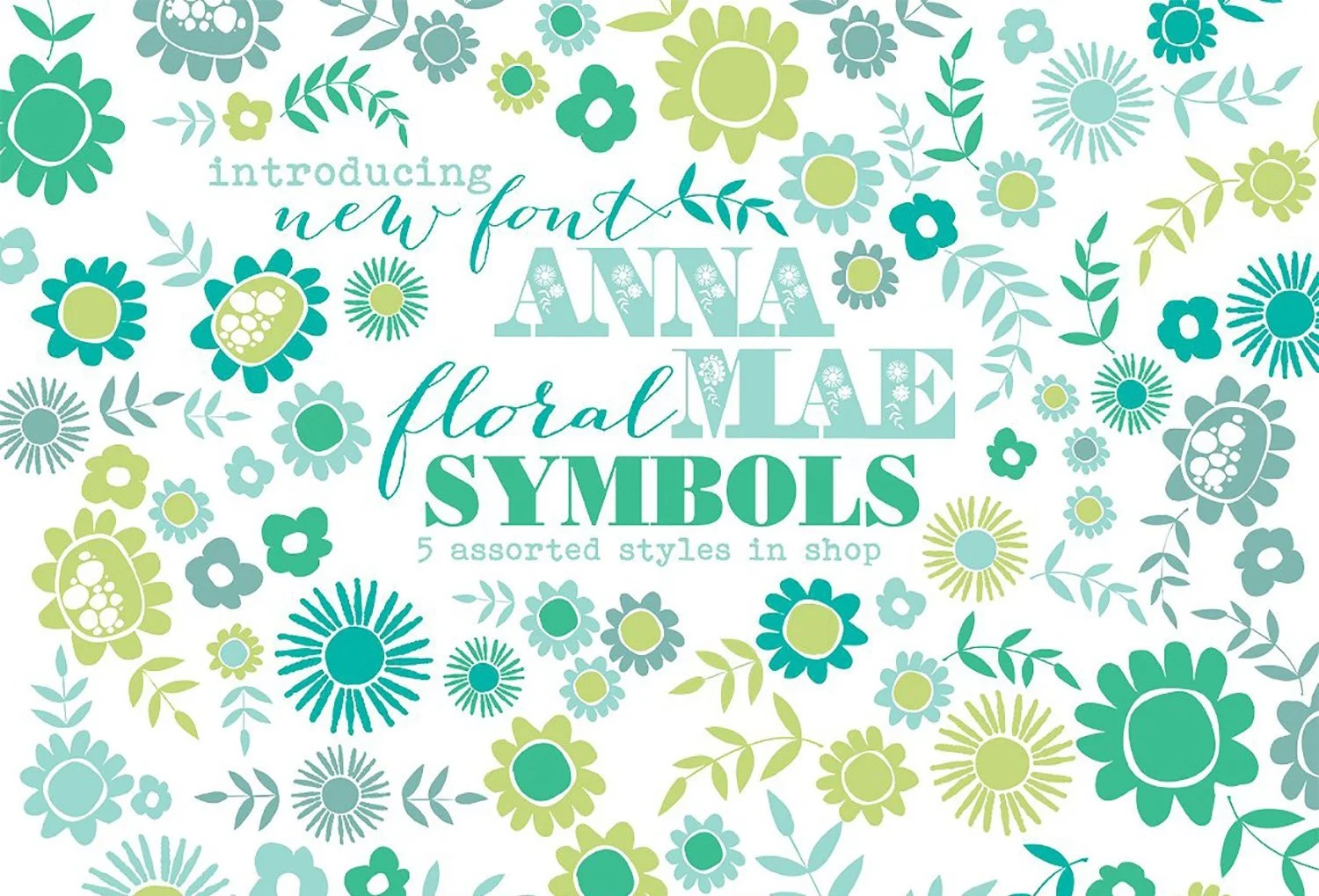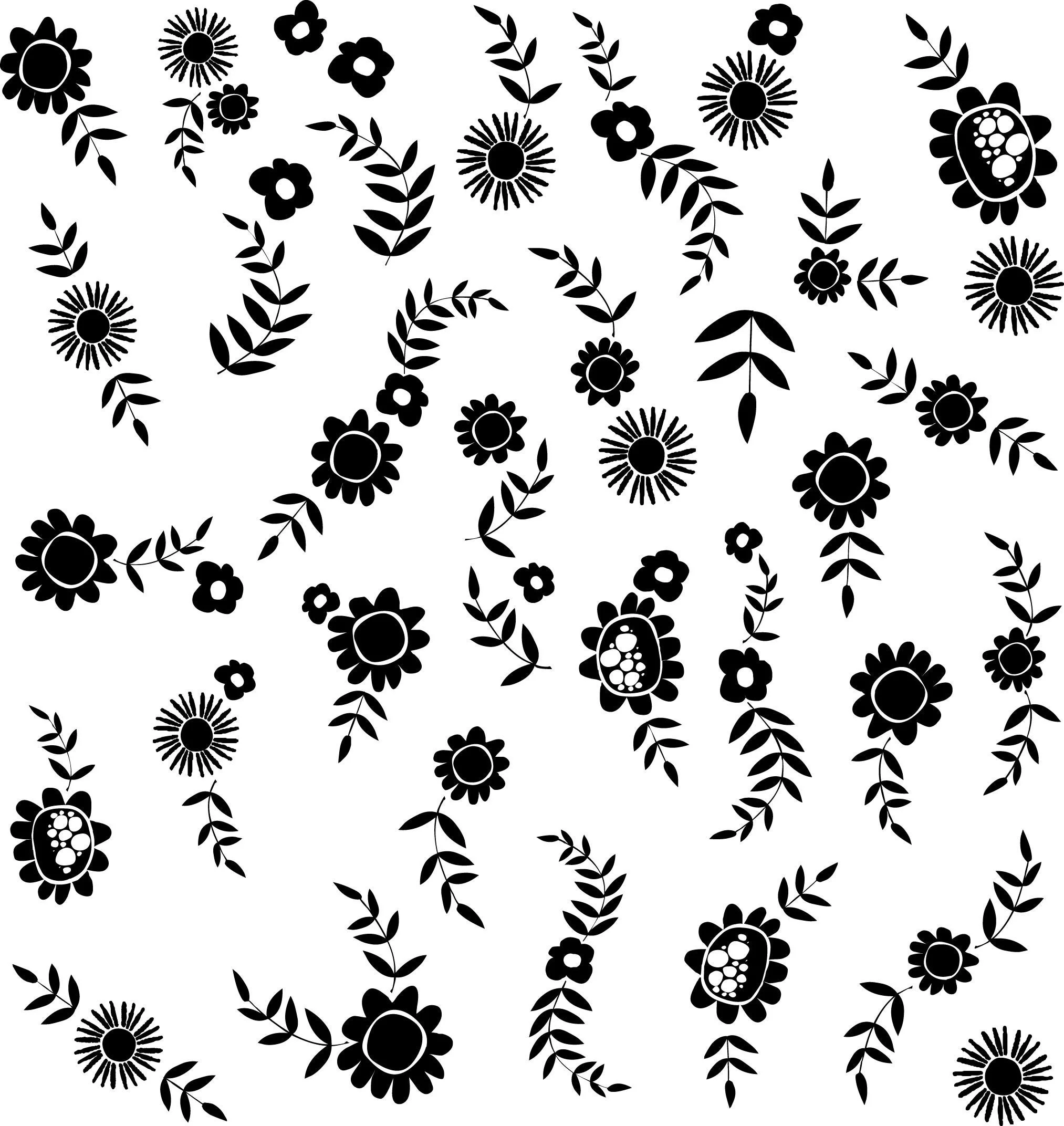
Anna Mae Symbols Elements Dingbats
ANNA MAE Floral Dingbats is the font for purchase.
This font is also available in (unshadowed) uppercase & lowercase and "In Depth" (shadowed) uppercase & lowercase available in my shop.